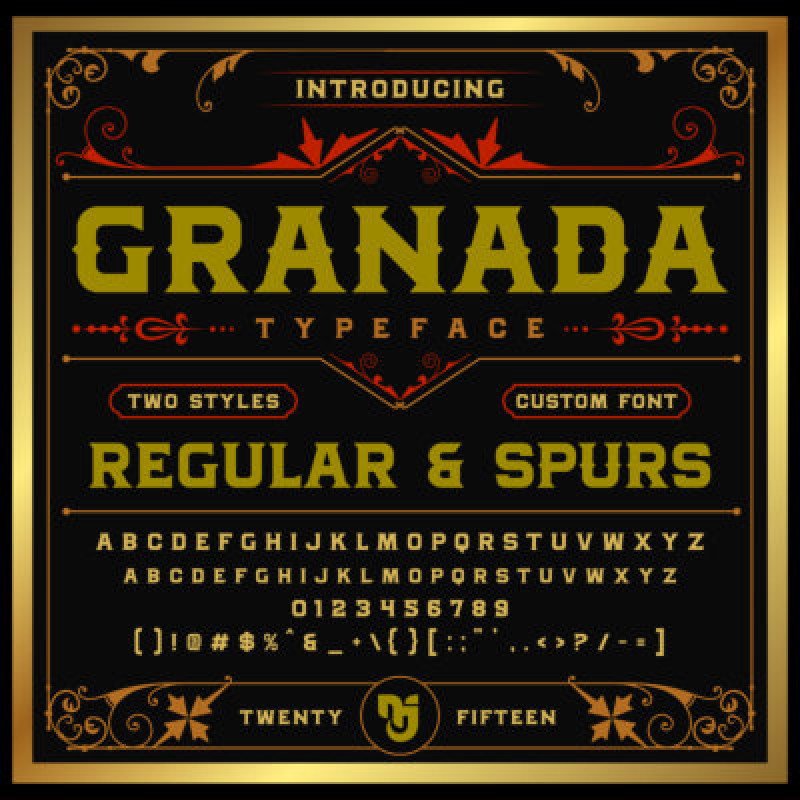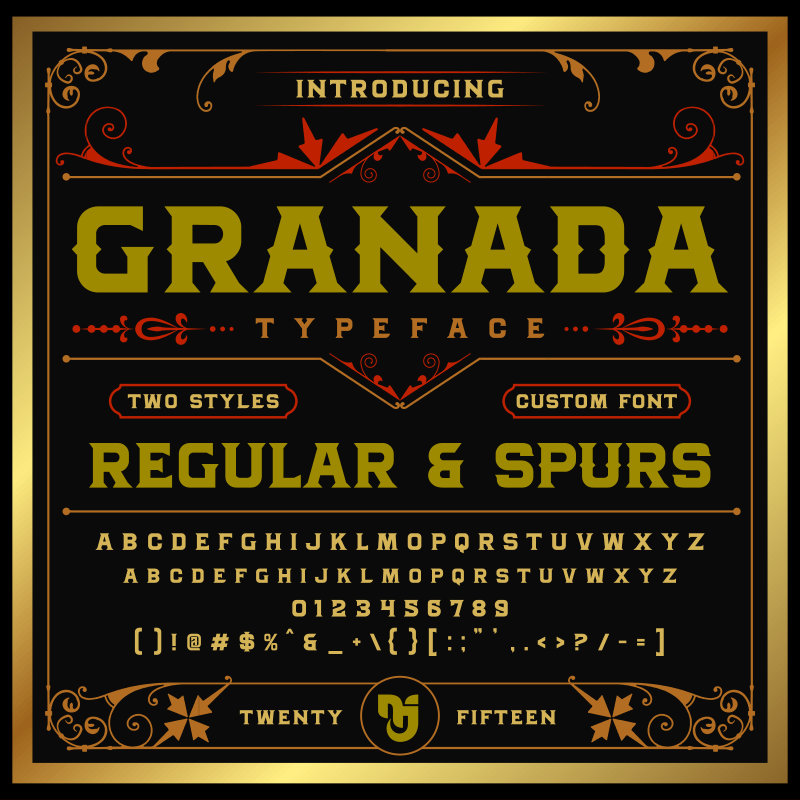
Granada Typeface
Designed by
Mikrojihad Inc.
Granada is perfect for designs that need a classic, old stylish, bold and strong custom font. The strokes of the letters have consistent wide, complete with punctuation and numbers.